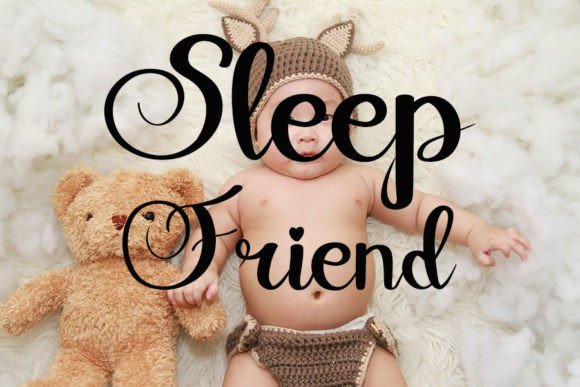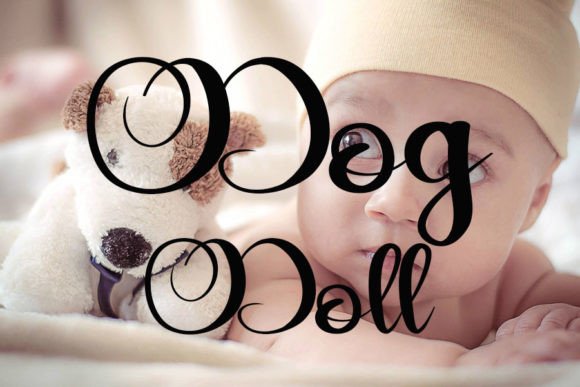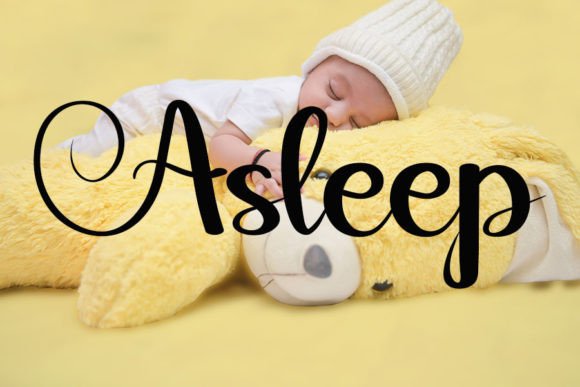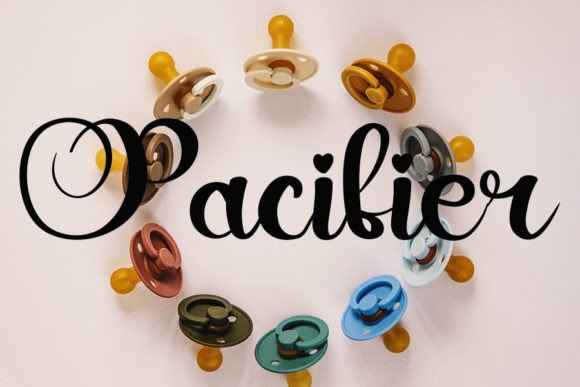
Baby Doll Font
About Baby Doll Font
“Baby Doll” is a meticulously crafted handwritten font that stands out with its neat and beautiful appearance, characterized by an elegant touch. This typeface is an ideal choice for a variety of projects, allowing you to infuse an incredibly distinct and timeless style into your designs.
The neat and beautiful quality of “Baby Doll” makes it a versatile font for your favorite projects. Whether you’re working on invitations, posters, branding materials, or any other creative endeavor, this font adds an element of elegance and sophistication.
The distinct and timeless style of “Baby Doll” makes it a font to fall in love with. Its unique character gives your designs a memorable and charming quality, ensuring that they stand out in the minds of your audience.
You can use “Baby Doll” to create spectacular designs across various mediums. From digital platforms to print materials, this font adapts seamlessly, maintaining its elegance and beauty in a range of applications.
In summary, “Baby Doll” is not just a font; it’s an elegant and timeless tool that can enhance the visual appeal of your projects. Its distinct and beautiful handwritten style makes it a perfect choice for those seeking a font that combines neatness, beauty, and a touch of sophistication for a wide range of design purposes.